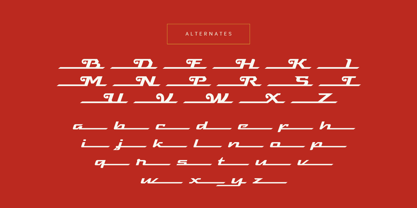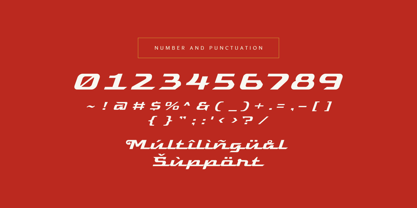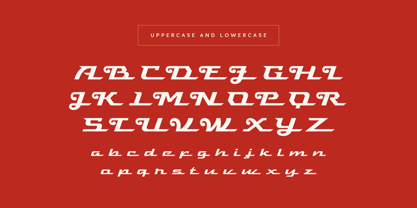
Visca
by Sronstudio
The Visca Font Family was designed by Muhamad Yusron Billah and published by Sronstudio. Visca contains 1 styles. More about this family
Visca is a vintage script font that exudes elegance and timeless charm. Designed with smooth curves and beautifully crafted alternate letters, this font brings a classic yet stylish touch to your designs. Perfect for branding, packaging, logos, posters, and retro-inspired projects, Visca offers versatility with its unique swashes and alternates, allowing you to create stunning typography with ease.
- Alternate letters & swashes
- Uppercase & lowercase characters
- Numerals & punctuation
- Multilingual support
Designers: Muhamad Yusron Billah
Foundry: Sronstudio